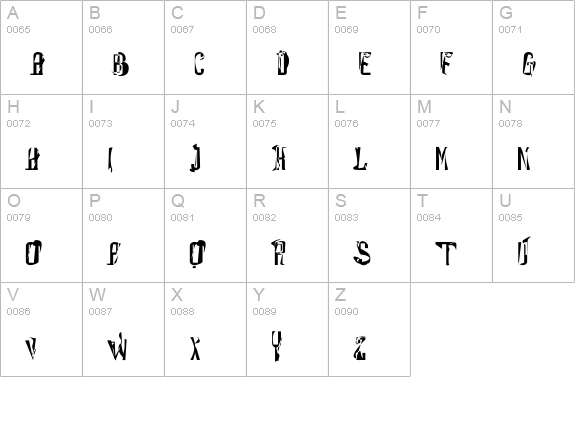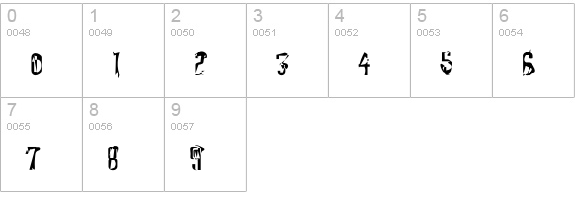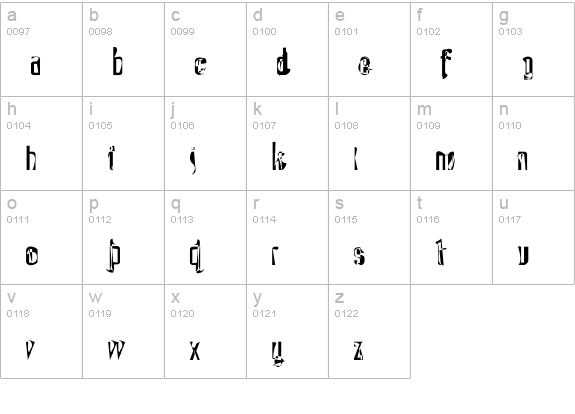
MorireSolid Font Details
MorireSolid is a stylish and versatile font that is perfect for a wide range of design projects. With its bold and modern appearance, MorireSolid is sure to make a statement and grab attention. This font is ideal for headlines, posters, logos, and more. What sets MorireSolid apart is that it is available for free download at FontsMarket.com. This means that you can easily access this high-quality font without any cost, making it a valuable addition to your font collection. Don't miss out on the opportunity to enhance your designs with MorireSolid and take advantage of its unique and eye-catching style.